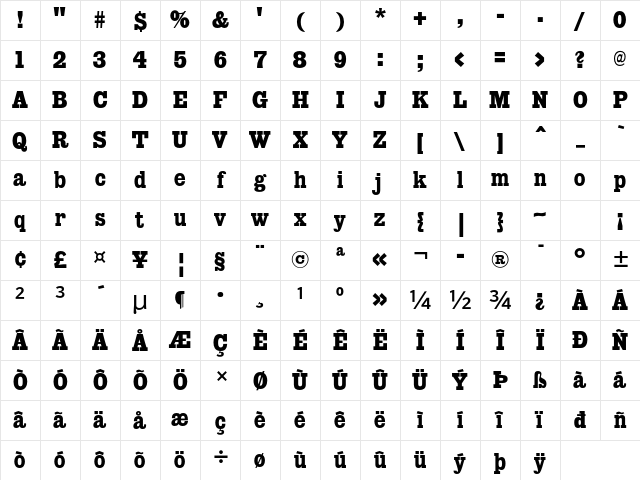
MP FBGiza One Three
Style: One Three
Designer: The Font Bureau, Inc.
Design Context for MP FBGiza
MP FBGiza is a composed and adaptable typeface that performs quietly and consistently across a wide range of design contexts.